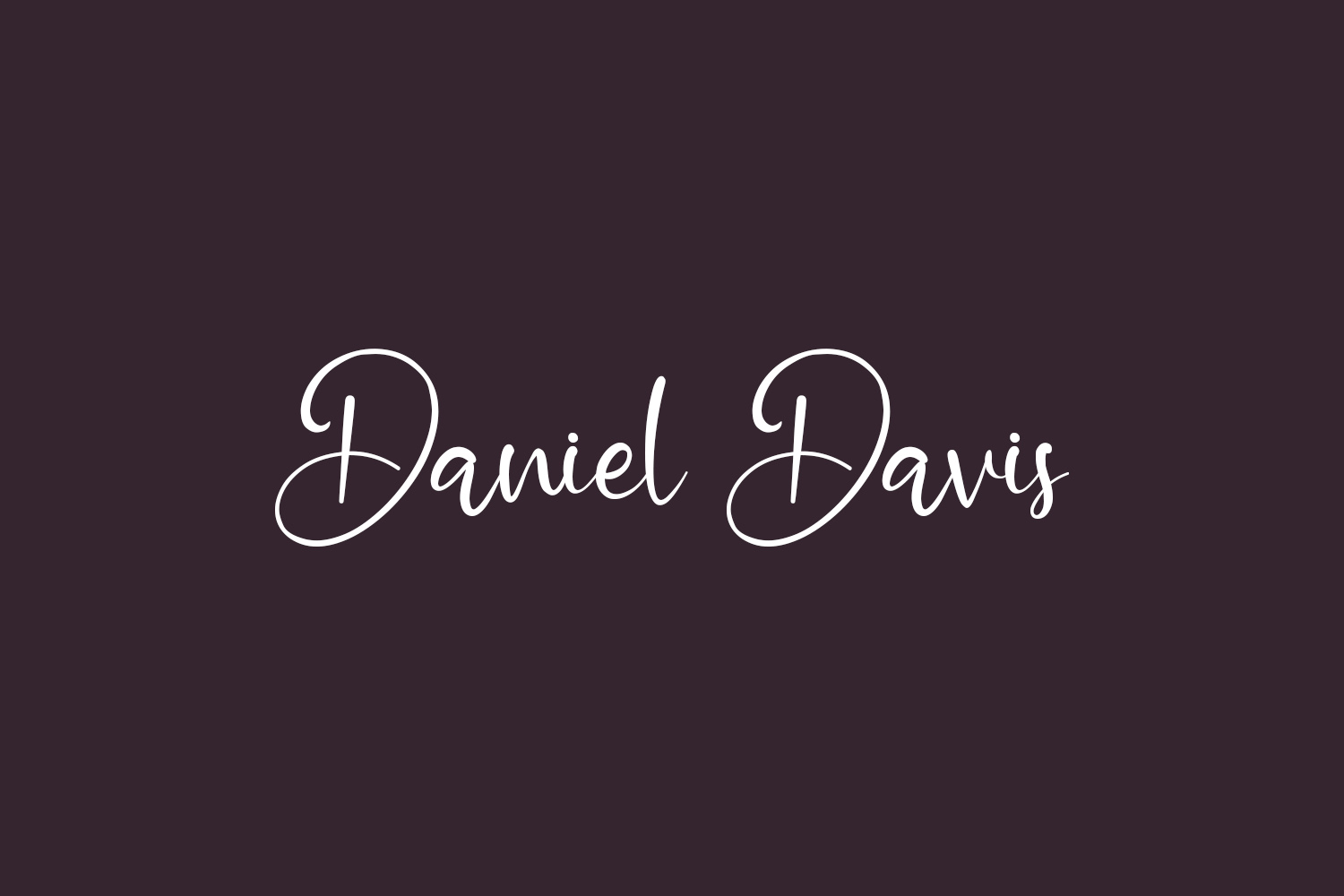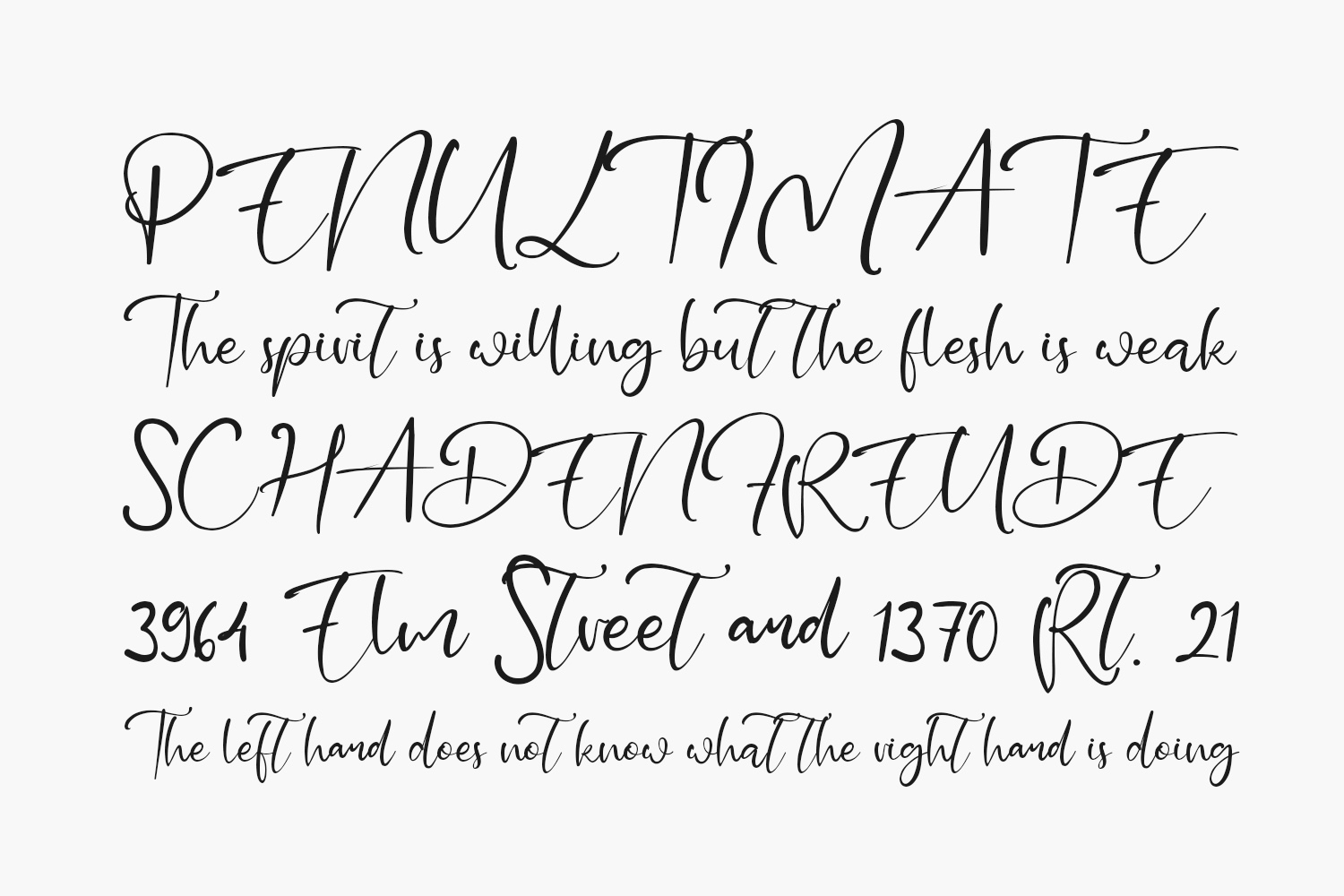
Daniel Davis Free Font is a beautiful and modern handwritten typeface. It features delicate and graceful lines, as well as decorative flourishes and swirls, making it perfect for use in high-end fashion, luxury brands, and other upscale projects. It is also well-suited for use in wedding invitations, branding, and other formal occasions. Daniel Davis Font is available in a range of weights and flexibility in design. It includes a full set of uppercase and lowercase letters, as well as numerals and punctuation. Overall, Daniel Davis Font is a stunning and refined choice for any project that requires a touch of class and sophistication.